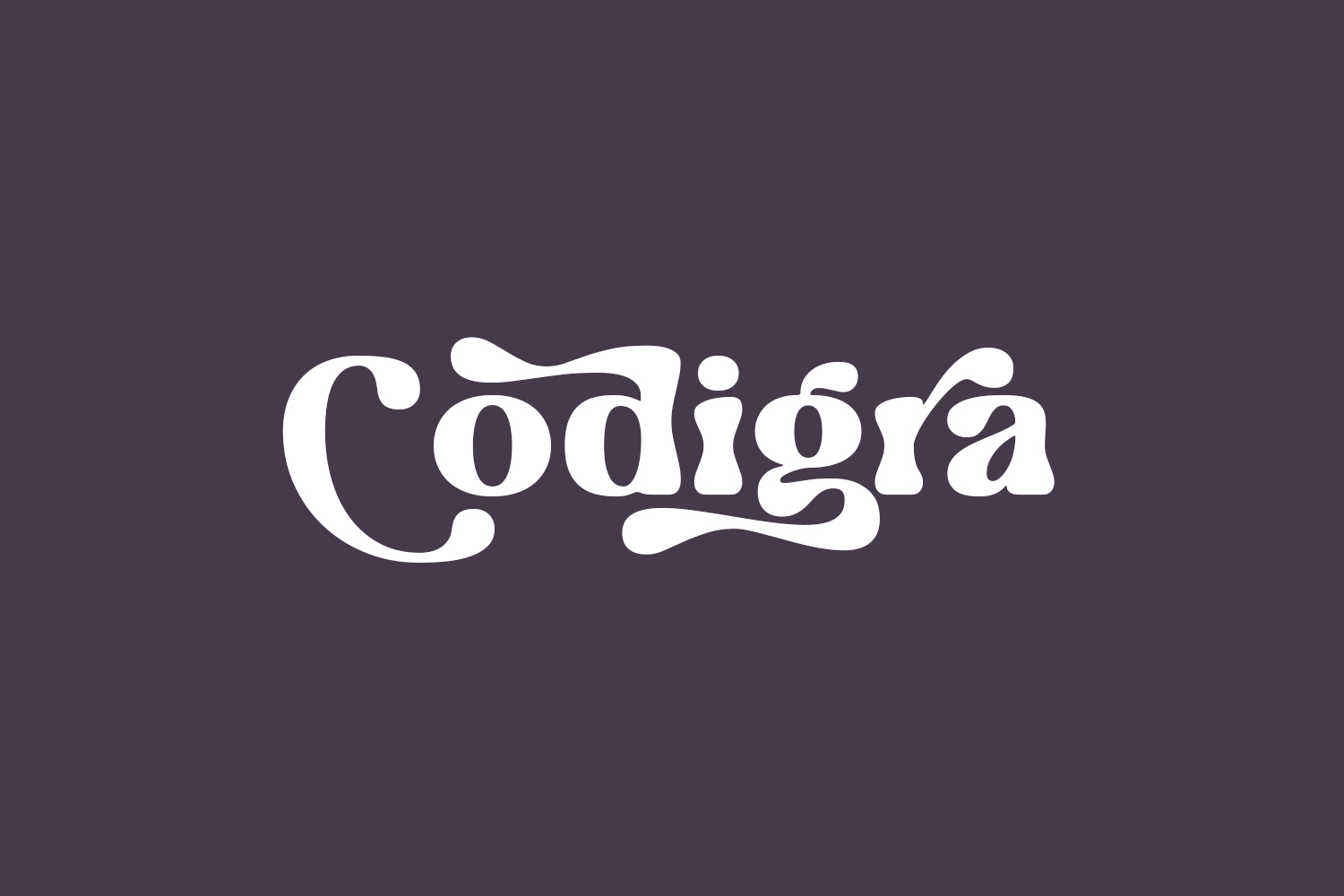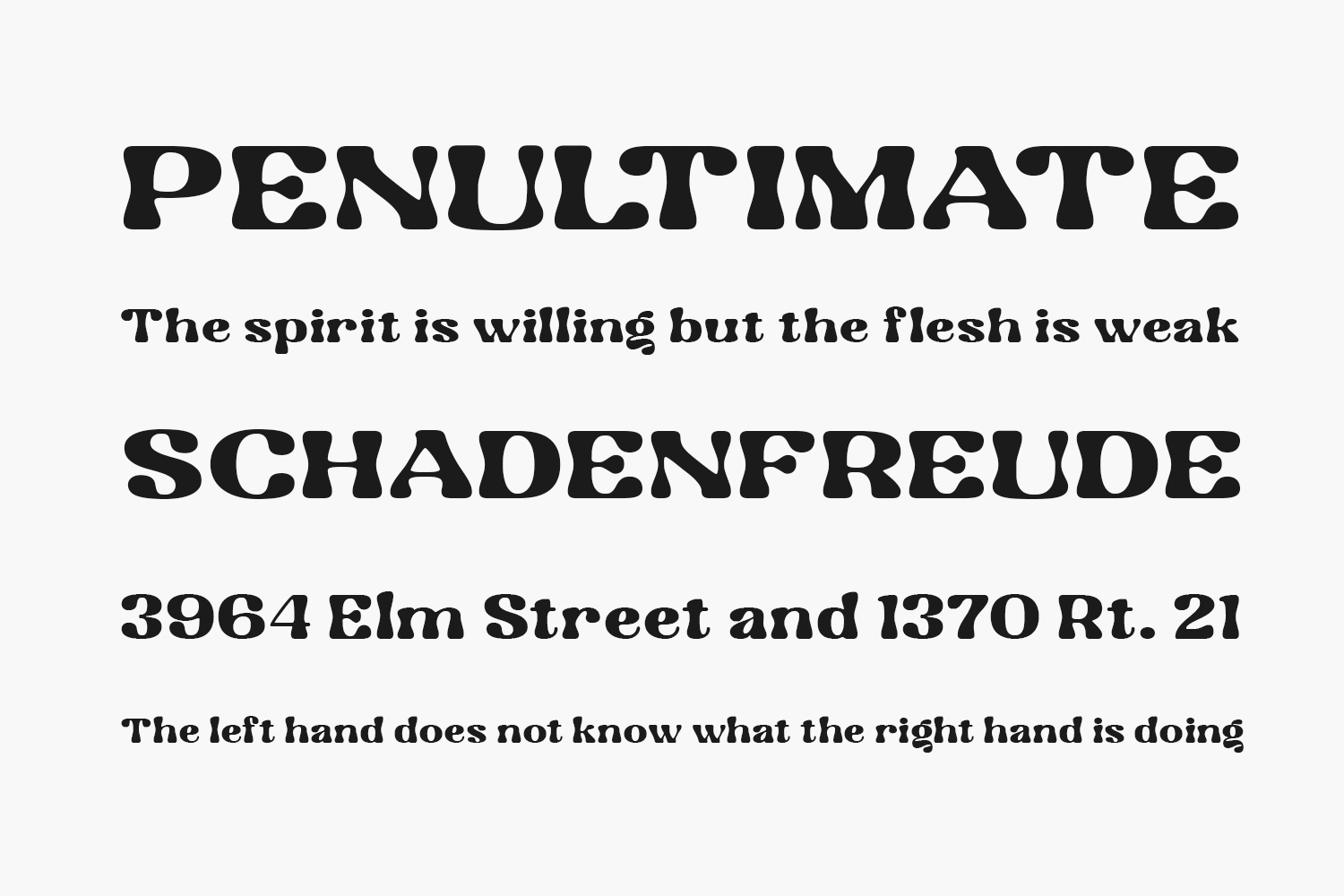
Codigra Free Font is a bold display font with a wavy and retro style. With its unique shape and attractive alternative characters, it is perfect for designs such as logos or visual branding touches. Codigra Free Font is free for personal use only. Please purchase the full version for commercial use.
Designed by Prioritype Co